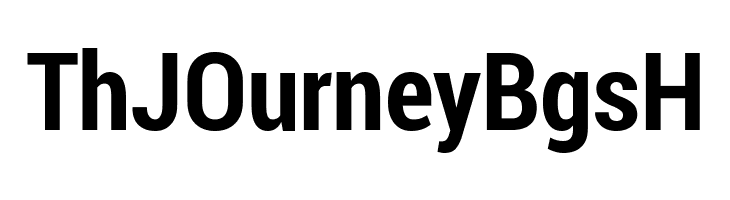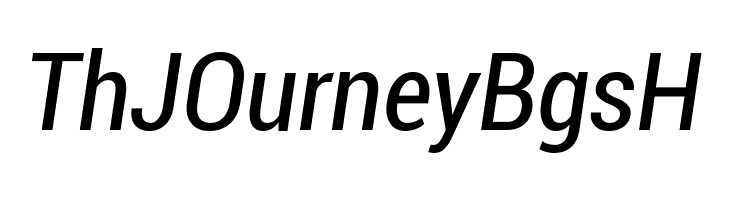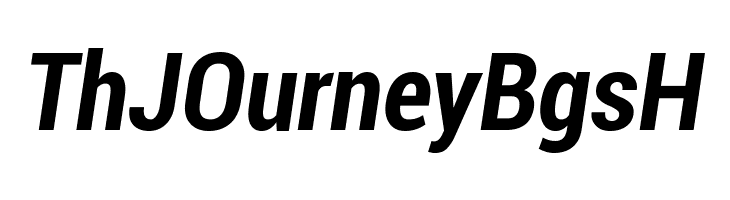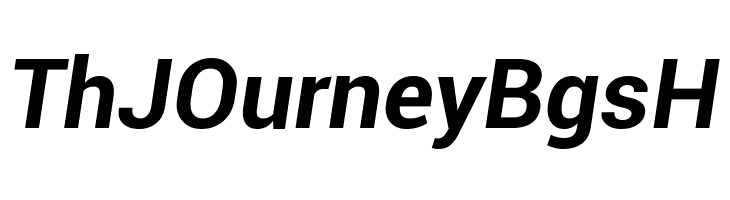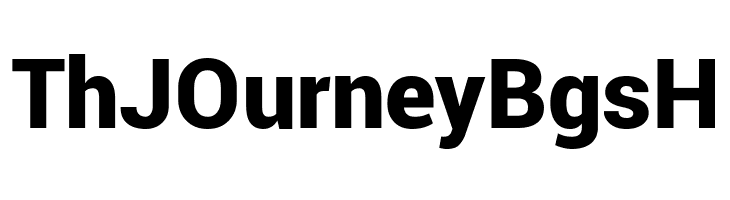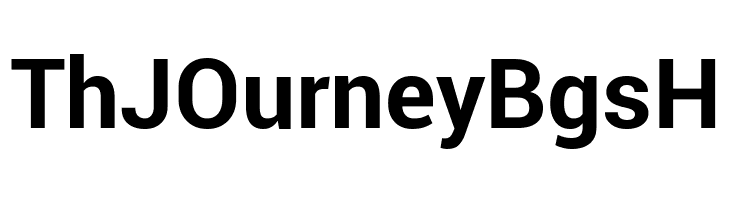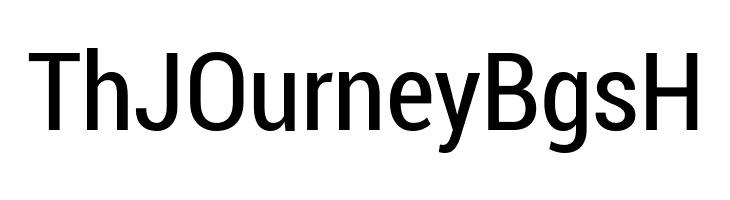
A bold, modern sans-serif typeface with a clean and impactful design.
A bold, modern sans-serif typeface with strong geometric shapes and high legibility.
A modern, bold sans-serif font with a clean and geometric design.
A bold, condensed typeface with a modern and clean aesthetic.
A bold, condensed, and italic font with a modern and dynamic style.
A modern, bold, and italicized font with a clean and dynamic appearance.
A modern, condensed sans-serif font with excellent readability and versatility.
A modern, condensed sans-serif typeface with an italic style, offering clarity and efficiency.
A modern, italicized sans-serif font with clean lines and balanced proportions.